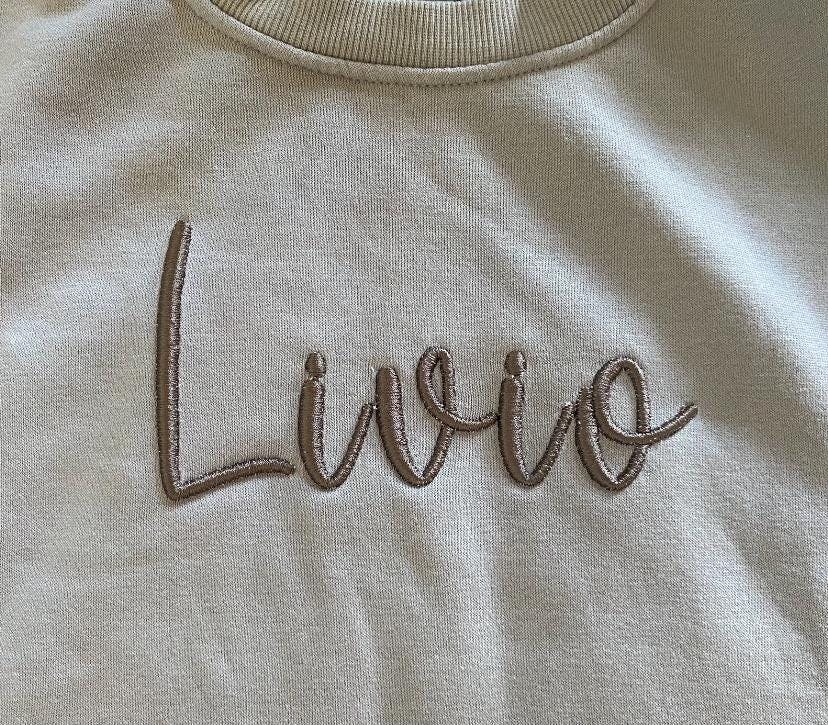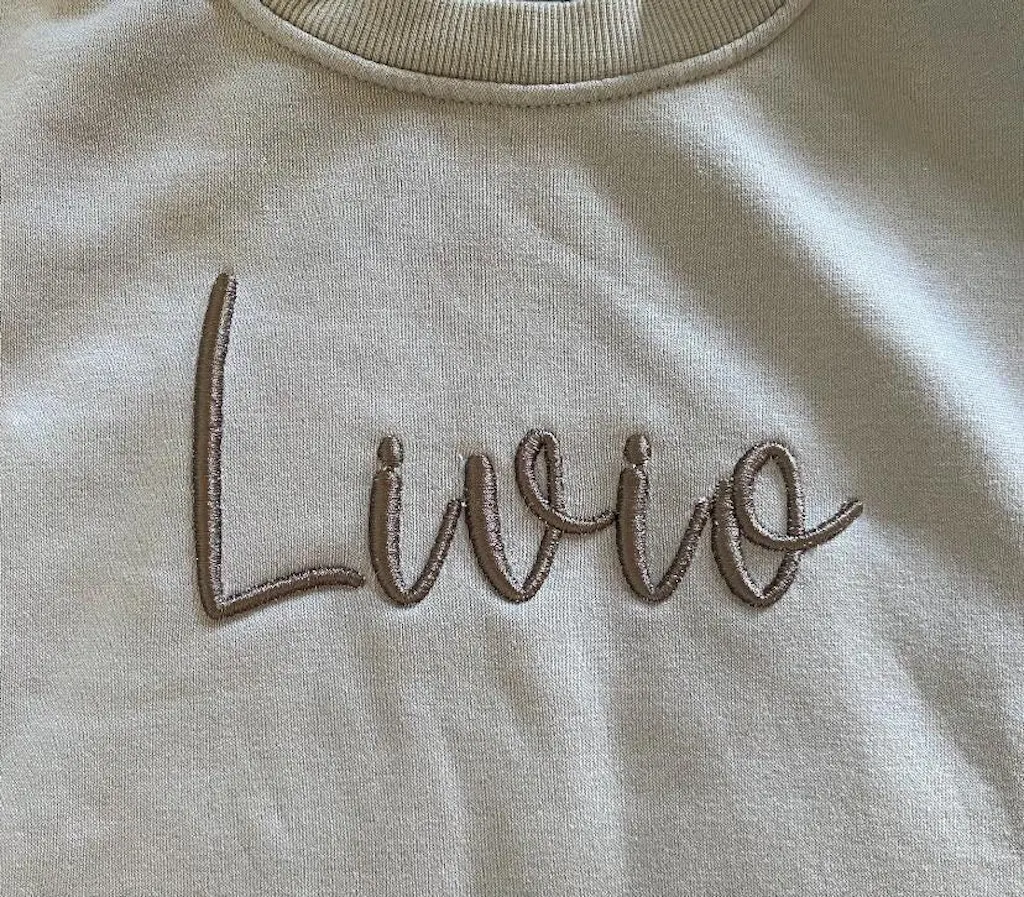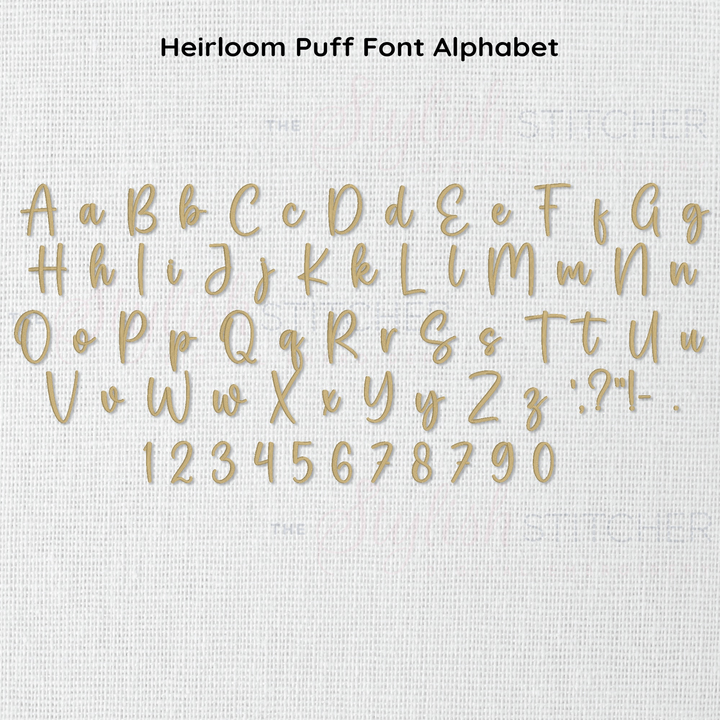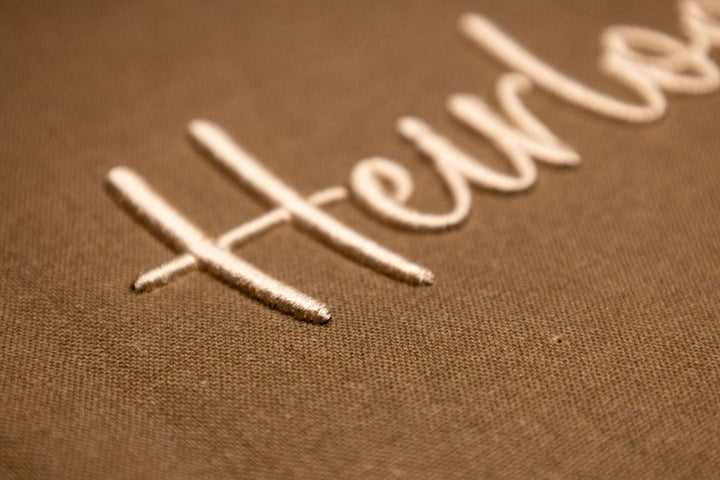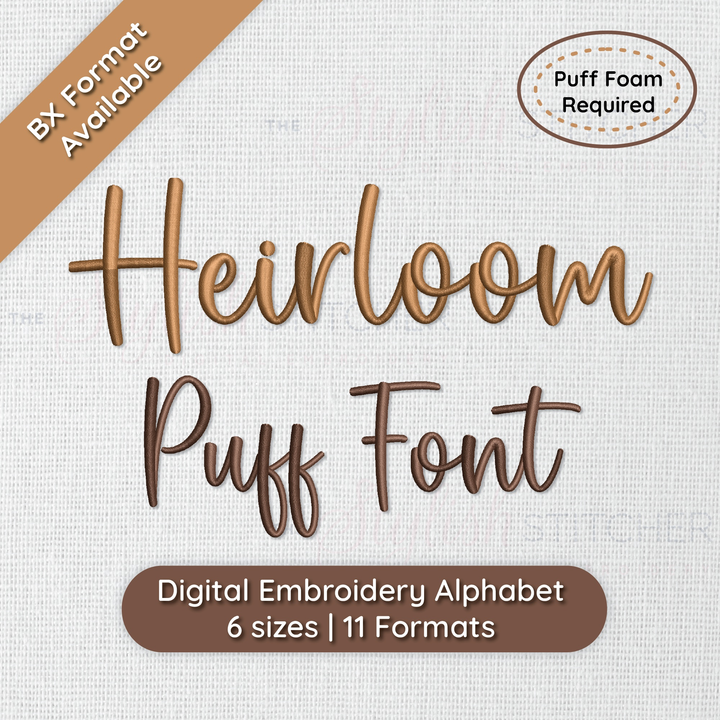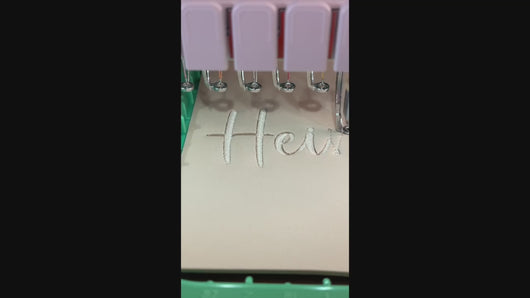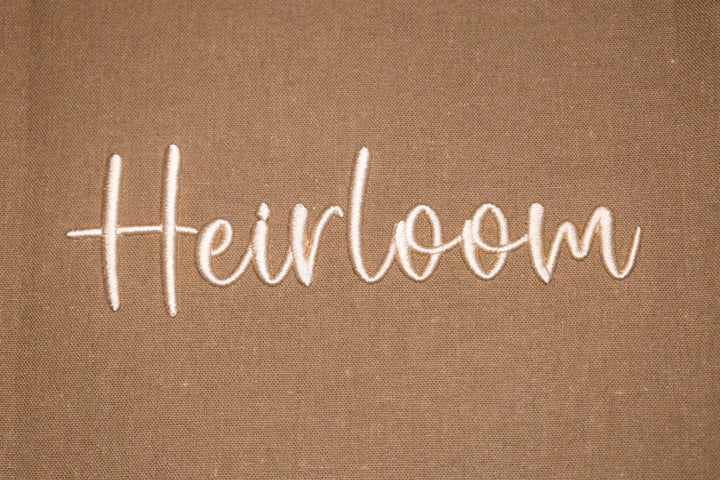
Photograph of stitched out Heirloom Puff embroidery font
Video showcasing machine stitching of Heirloom Puff font
Photograph of stitched out Heirloom Puff embroidery font alphabet
Close up photograph of stitched out Heirloom Puff embroidery font
Heirloom 3D Puff Digital Embroidery Font
Heirloom carries the warmth and elegance of a cherished keepsake, adding a touch of nostalgia and depth to your embroidery projects. Its graceful lines and gentle curves are brought to life with the puff foam technique, creating a stunning 3D effect reminiscent of classic, hand-stitched heirlooms. Whether you’re embellishing a vintage-inspired pillow or a timeless monogram, Heirloom brings a sense of history and craftsmanship to every stitch.
Stitch Type: Satin Stitch for 3D Puff